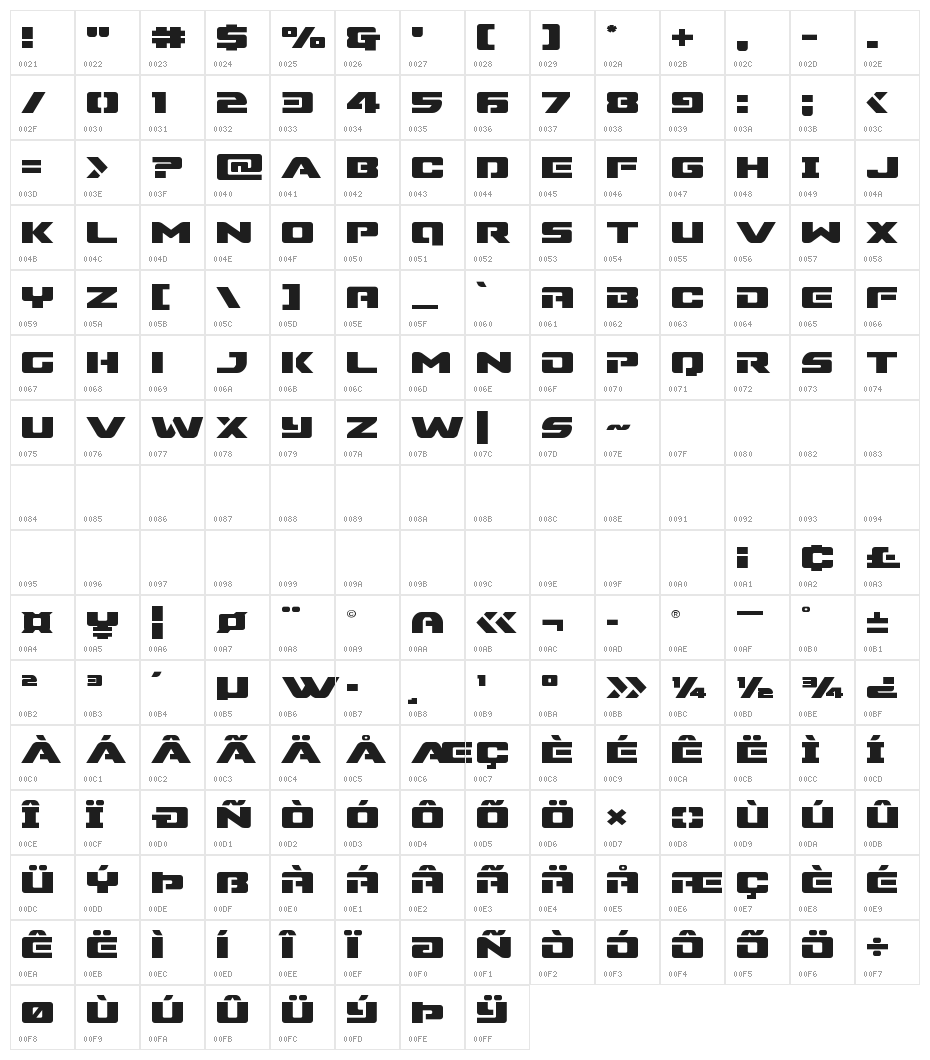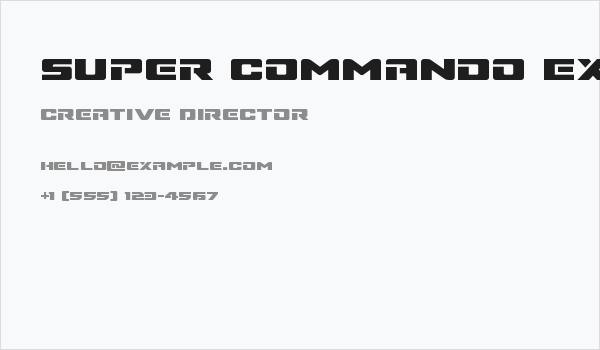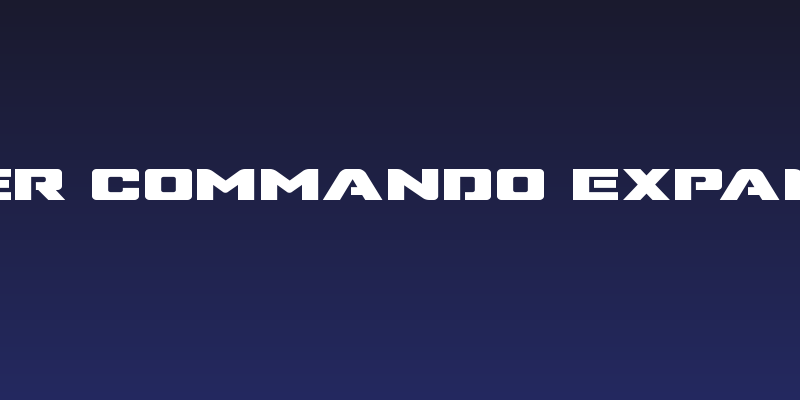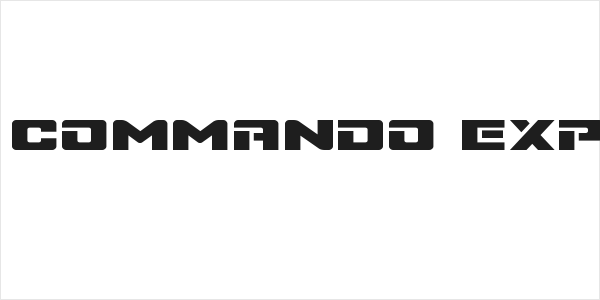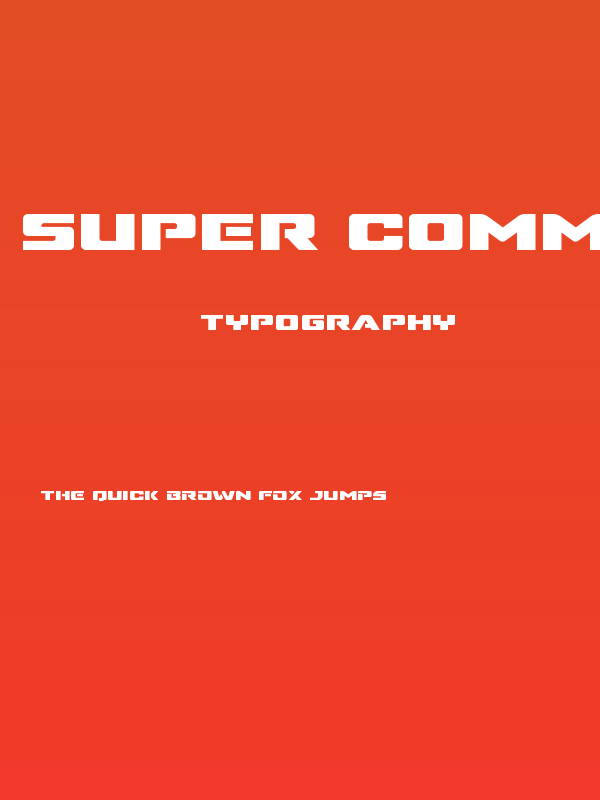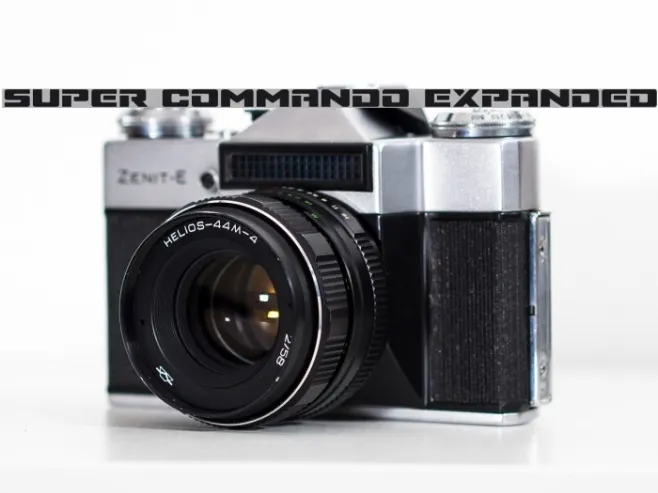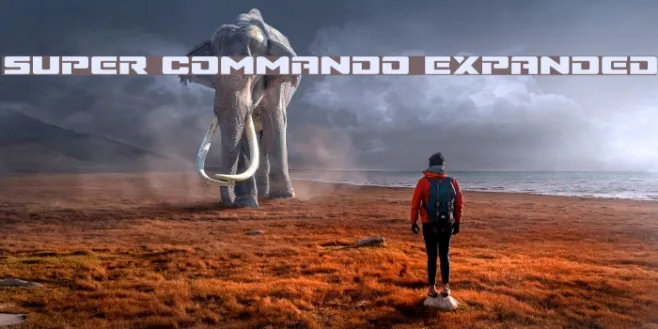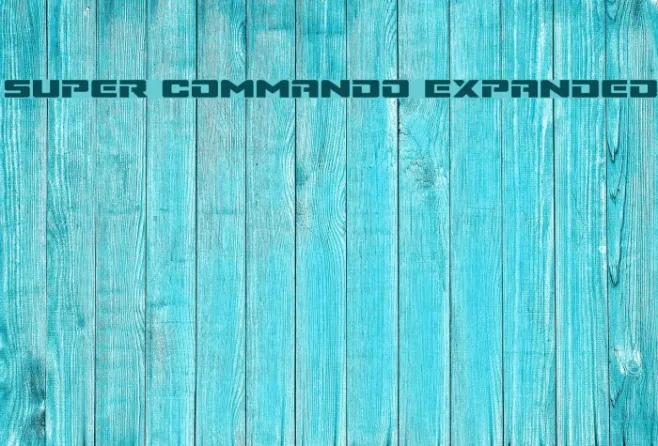
Super Commando Expanded Font
Super Commando Expanded Description
This font exhibits a bold and futuristic style, characterized by its strong geometric shapes and expanded width. The uppercase letters are particularly striking, with angular cuts and a sense of movement that suggests speed and modernity. The lowercase letters maintain the same boldness, ensuring consistency across the typeface. Numbers and special characters are equally robust, making them suitable for impactful designs. The overall appearance is clean and assertive, ideal for projects that require a commanding presence.
| Proposed Projects | Ideal for sci-fi themed posters, video game titles, technology branding, and any design needing a strong, modern aesthetic. |